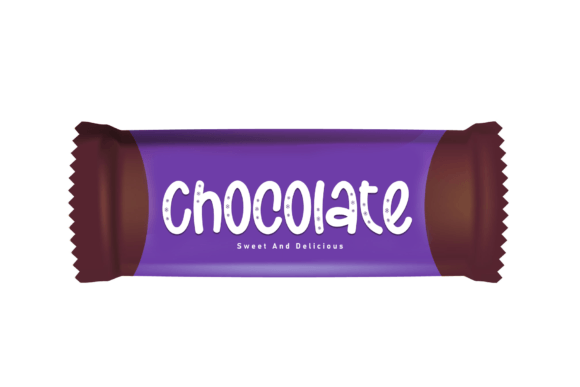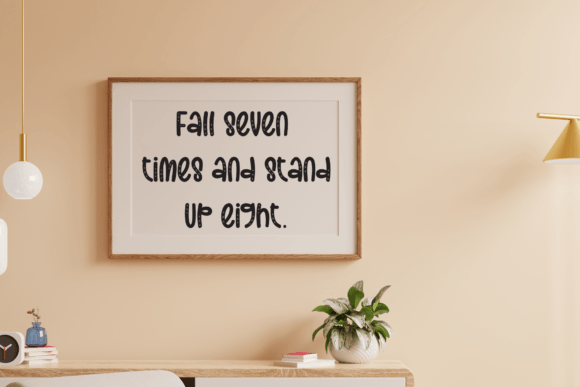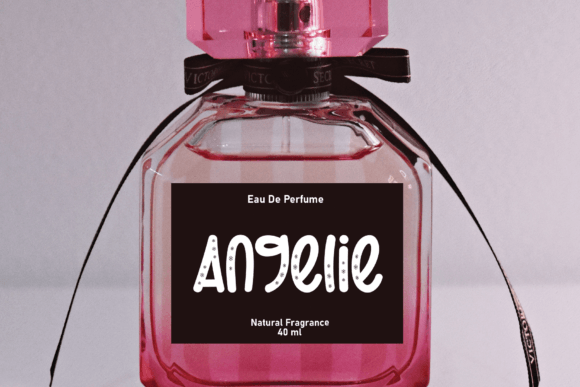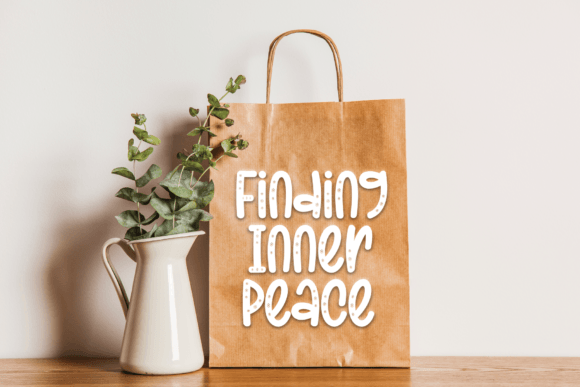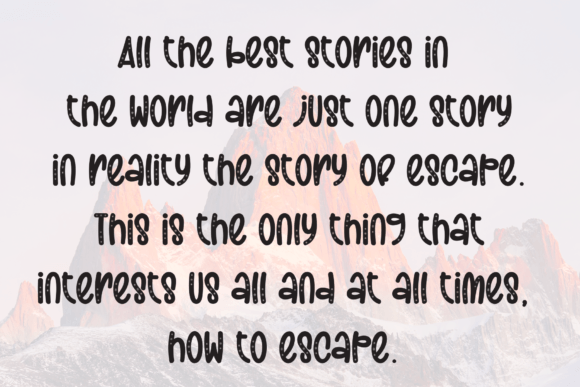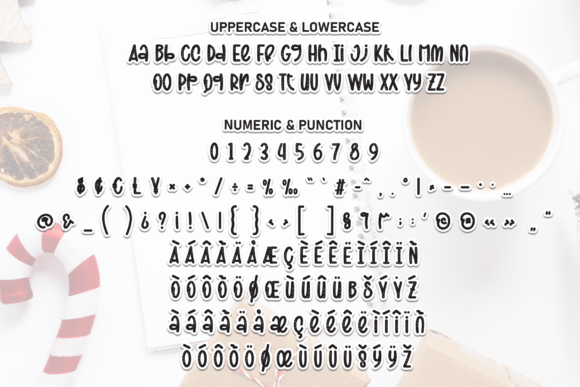
Coffee Christmas Font: The Perfect Addition to Your Design Projects
Are you looking for a font that exudes a warm and friendly vibe? Look no further than the Coffee Christmas font! This casual handwritten font is designed to capture a relaxed and effortless charm, making it perfect for personal projects, social media, and invitations.
What Makes Coffee Christmas Font So Special?
Coffee Christmas font is a unique and stylish addition to any design project. Its natural, flowing strokes give it a friendly and approachable feel, making it ideal for designers and crafters who want to add a personal touch to their work. The font’s easygoing style adds warmth and authenticity, making it perfect for a variety of design applications.
Characteristics of Coffee Christmas Font
- Casual and Handwritten: Coffee Christmas font has a casual, handwritten feel that makes it perfect for personal and informal projects.
- Natural and Flowing Strokes: The font’s natural, flowing strokes give it a relaxed and effortless vibe.
- Warm and Friendly: The font’s warm and friendly style makes it perfect for designs that require a personal touch.
- Easy to Read: The font is easy to read, making it perfect for body text and captions.
Uses for Coffee Christmas Font
Coffee Christmas font is versatile and can be used for a variety of design projects, including:
- Personal Projects: Use Coffee Christmas font to add a personal touch to your personal projects, such as photo albums, scrapbooking, and crafting.
- Social Media: Use the font to create engaging social media posts, quotes, and graphics.
- Invitations: Add a touch of warmth and authenticity to your invitations, such as birthday party invitations, holiday cards, and wedding invitations.
- Branding: Use Coffee Christmas font to create a unique and recognizable brand identity for your business or personal brand.
Tips for Using Coffee Christmas Font
Here are some tips for using Coffee Christmas font in your design projects:
- Pair with Other Fonts: Pair Coffee Christmas font with other fonts to create a unique and interesting contrast.
- Use for Headings and Titles: Use Coffee Christmas font for headings and titles to add a touch of warmth and personality to your design.
- Experiment with Colors: Experiment with different colors to find the perfect combination that matches your brand or design style.
Why Designers and Crafters Love Coffee Christmas Font
Designers and crafters love Coffee Christmas font for its unique and charming style. Here are some reasons why:
- Unique Style: Coffee Christmas font has a unique style that sets it apart from other fonts.
- Versatile: Coffee Christmas font is versatile and can be used for a variety of design projects.
Coffee Christmas font is a wonderful addition to any design project. Its casual, handwritten style and natural, flowing strokes make it perfect for designers and crafters who want to add a personal touch to their work. With its warm and friendly vibe, Coffee Christmas font is sure to become a favorite in your design arsenal.
Whether you’re working on a personal project, social media post, or invitation, Coffee Christmas font is the perfect choice. So why not give it a try and see how it can add a touch of warmth and authenticity to your designs?